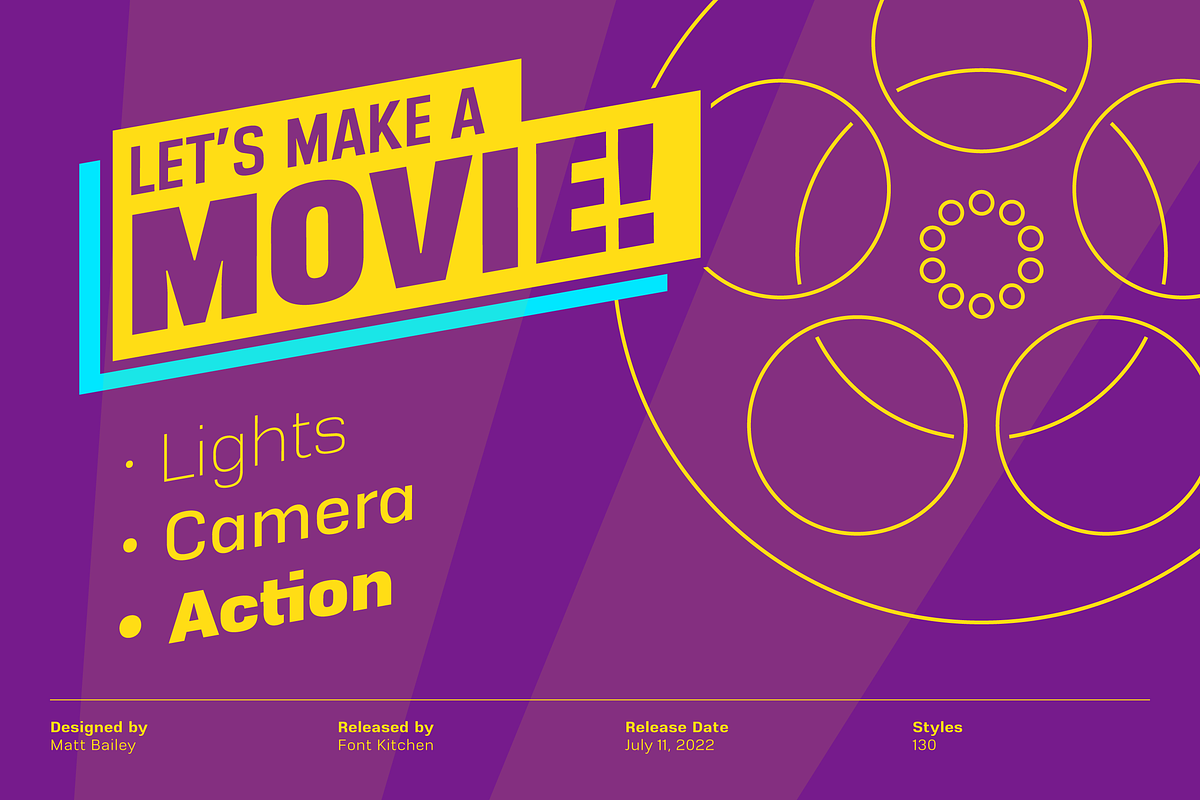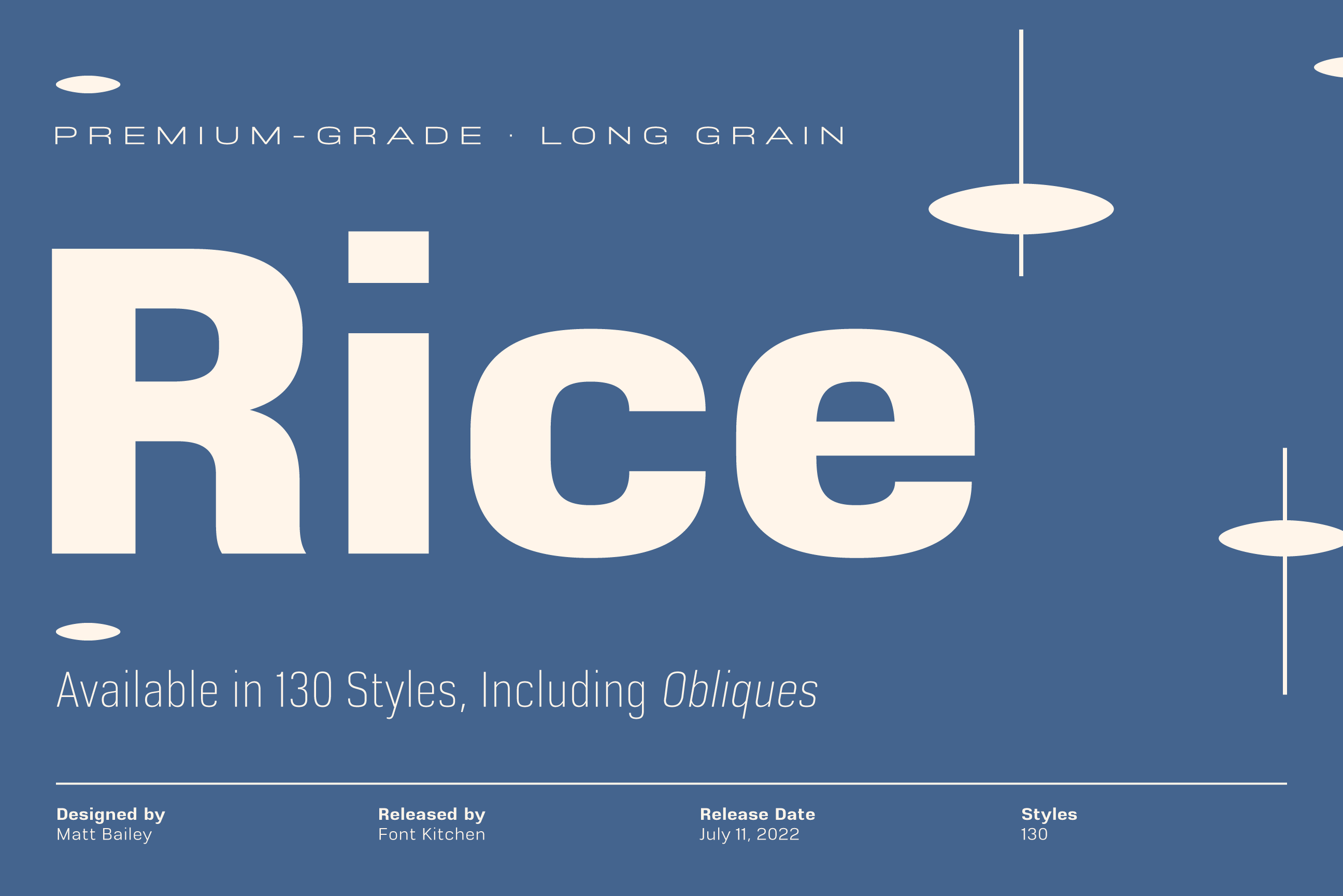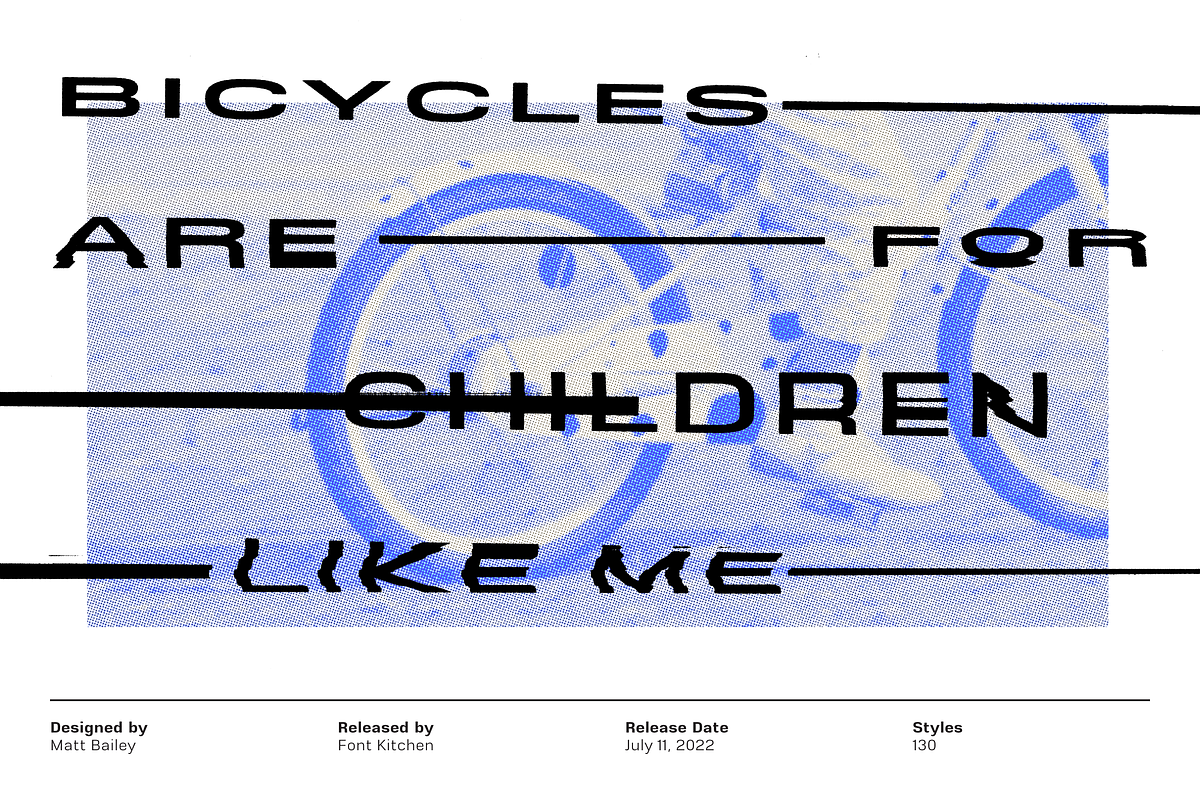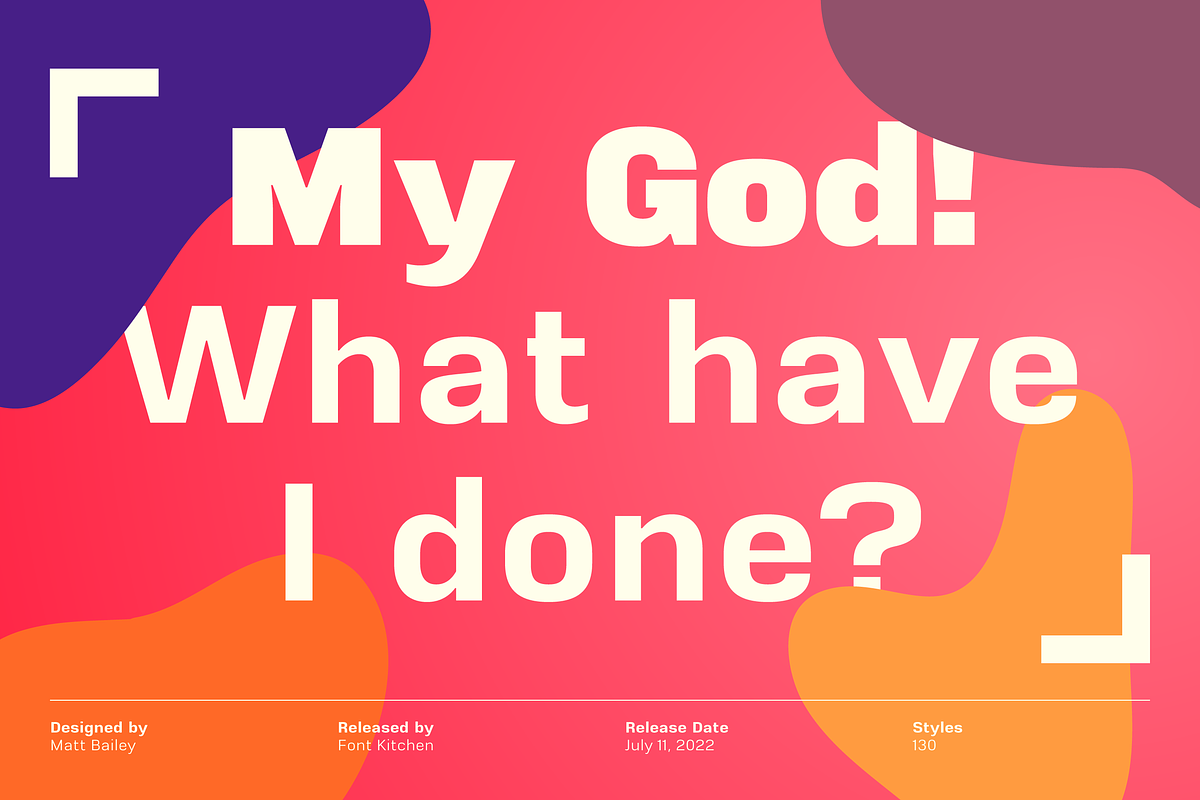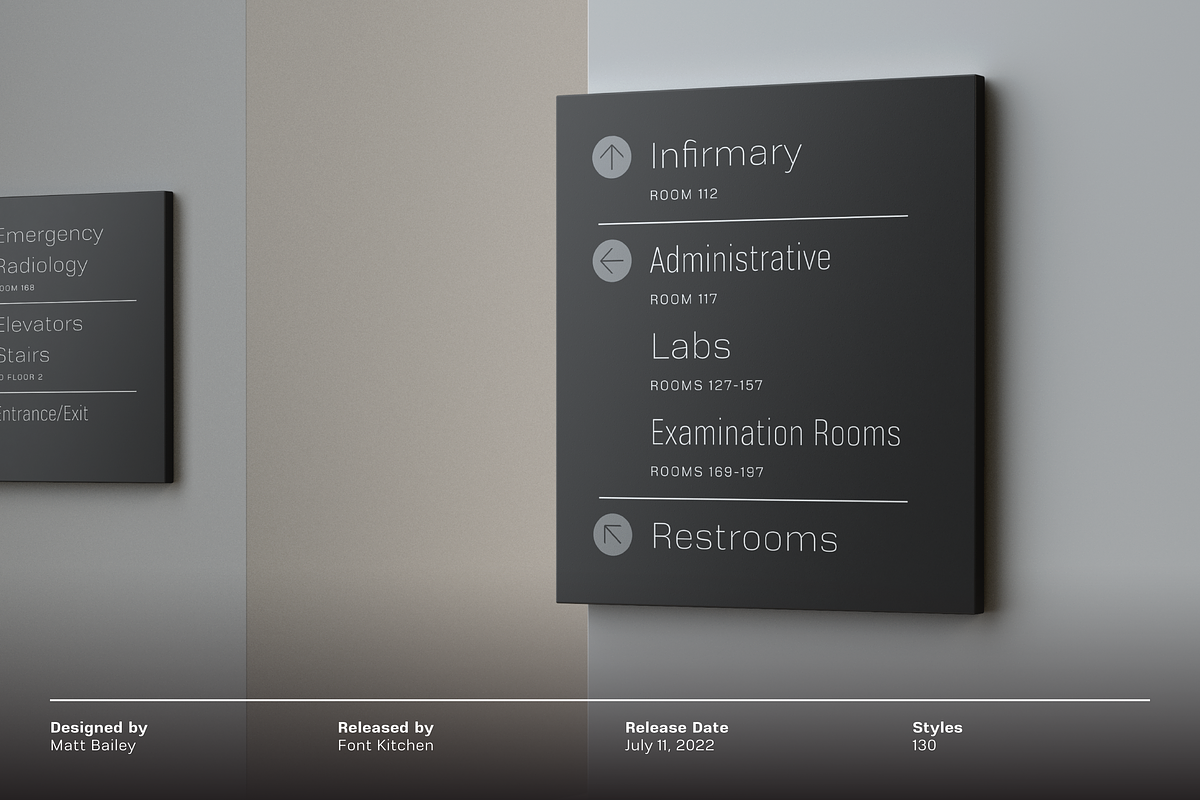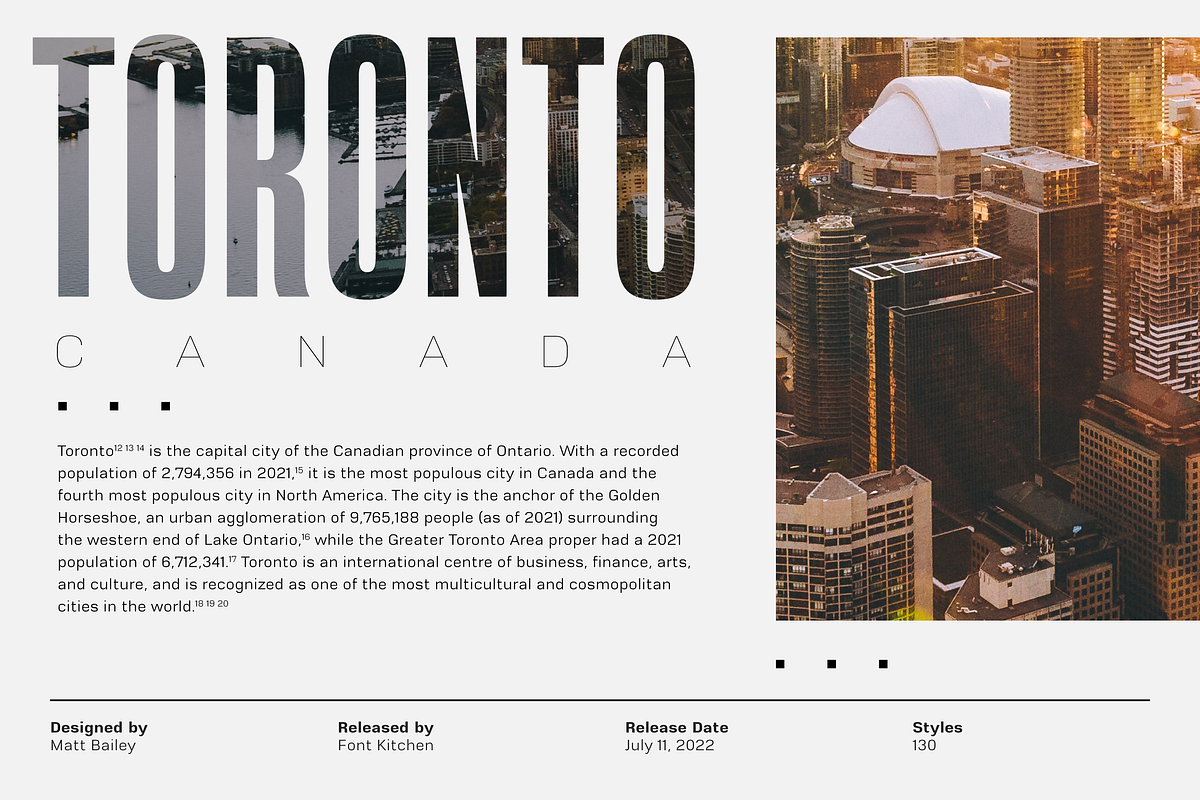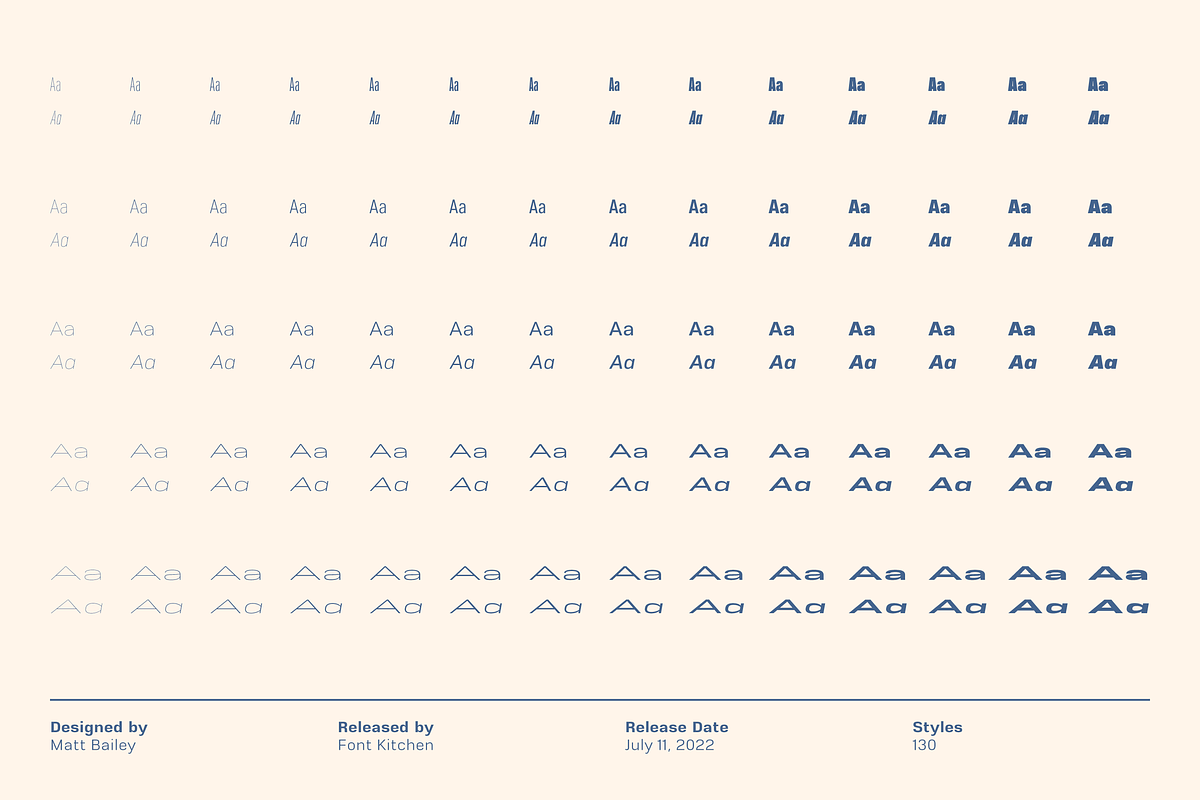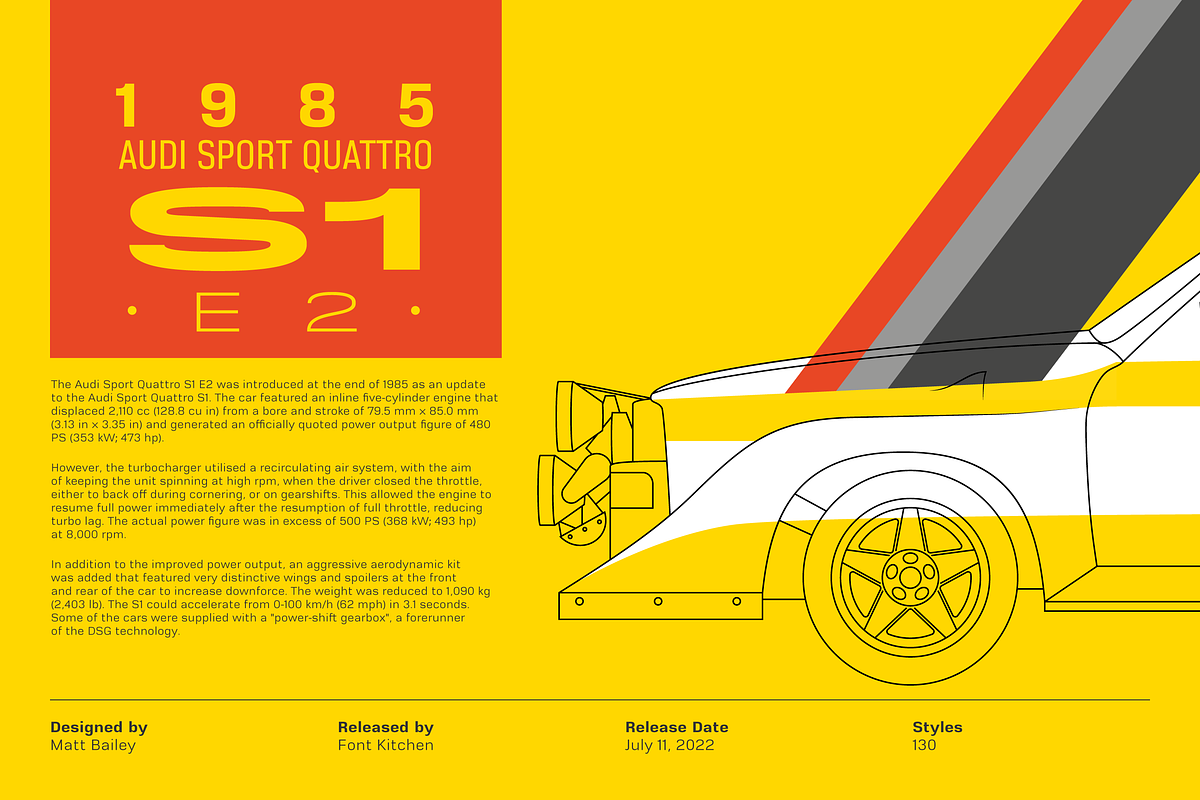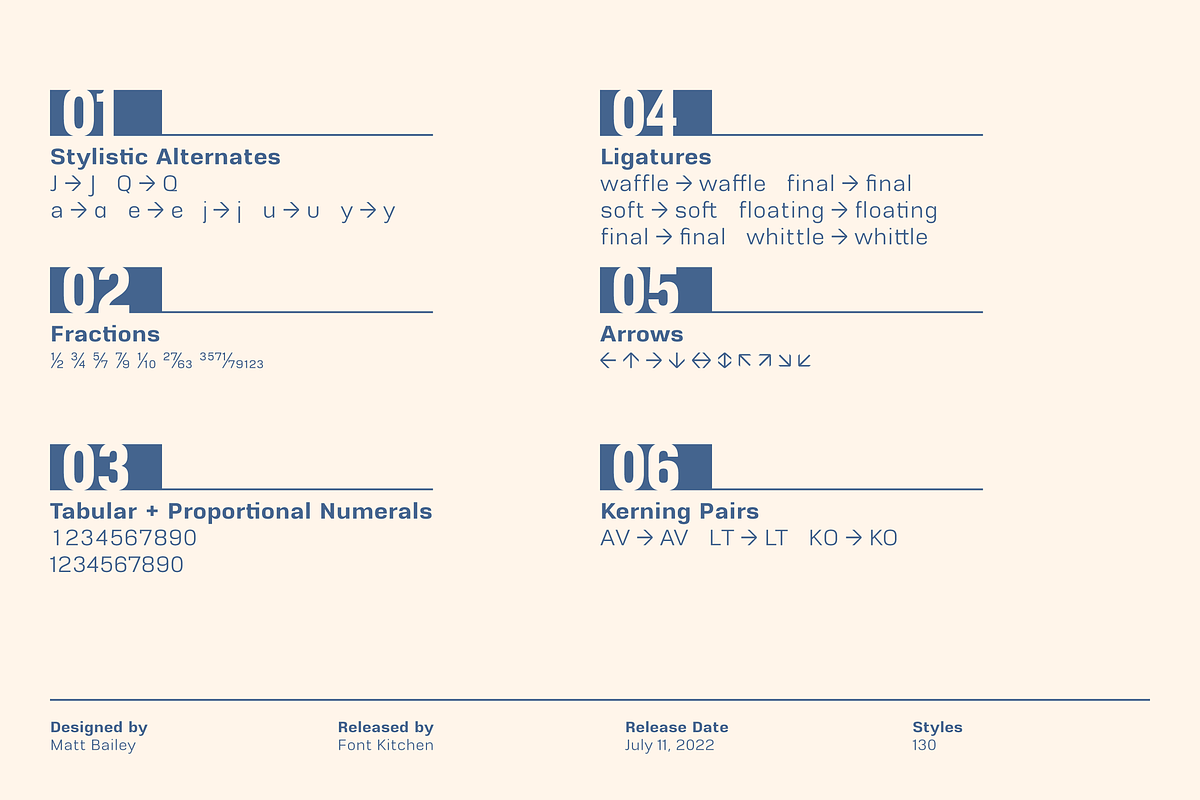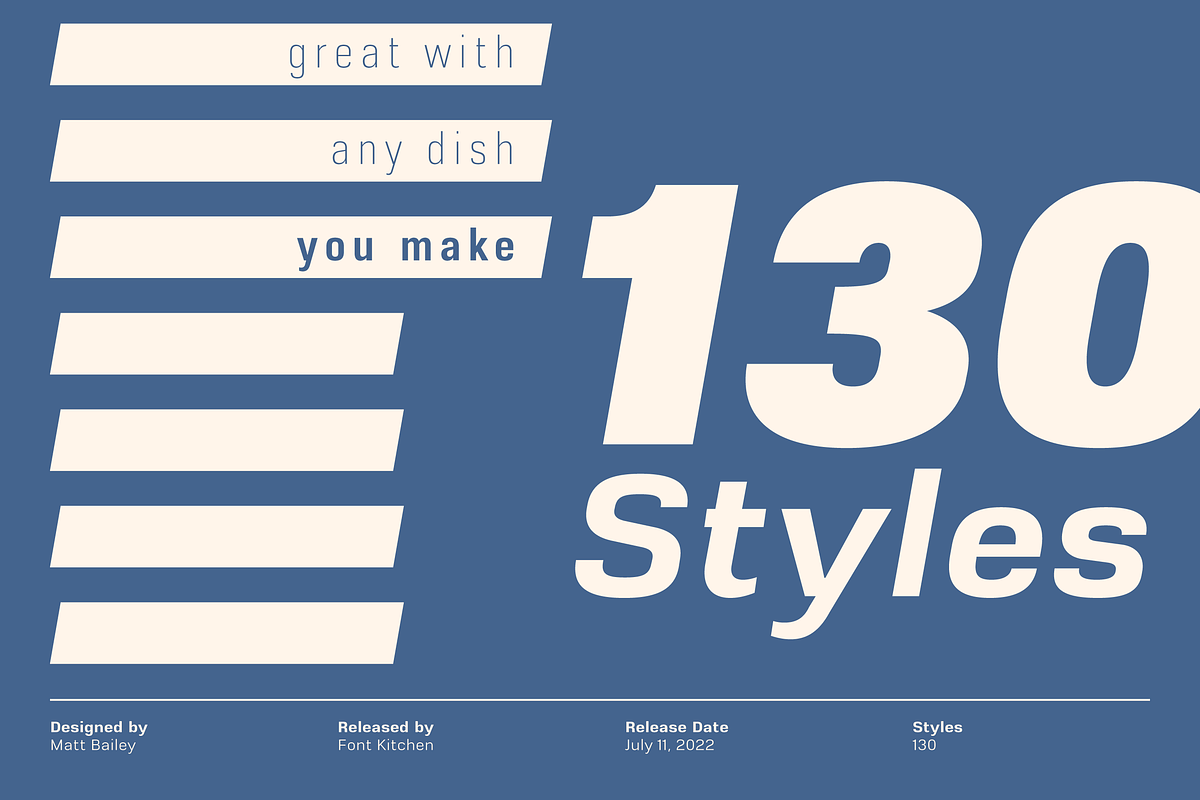
Rice - A Sans Serif Superfamily
Everything is better with Rice! Stylized inktraps, square-ish curves, and a strong, savory flavor make this superfamily an easy-to-use treat in your kitchen. Versatile enough for whatever you'll be cooking up next, Rice is available in a whopping 130 styles, each locally grown and harvested. Raised with stylistic alternates, fractions, tabular and lining figures, hand-kerned pairs, ligatures, and arrow figures that are great for signage, Rice is a strong, welcome addition to your typographic menu that will bring structure and body to anything it's served with.